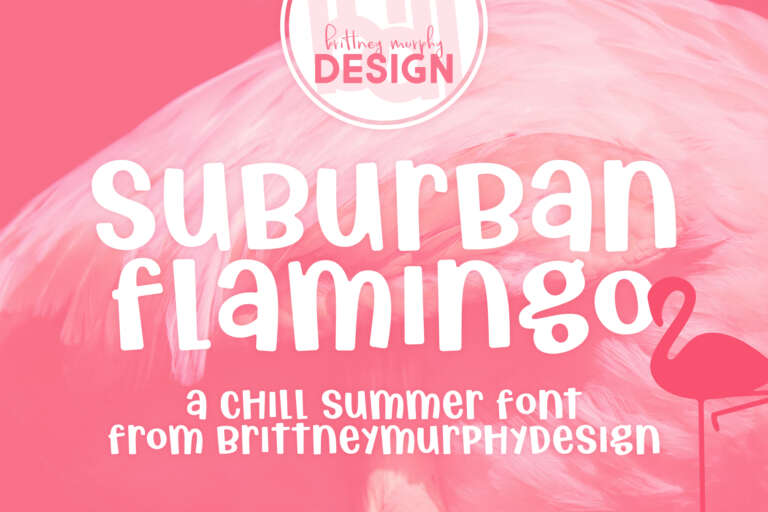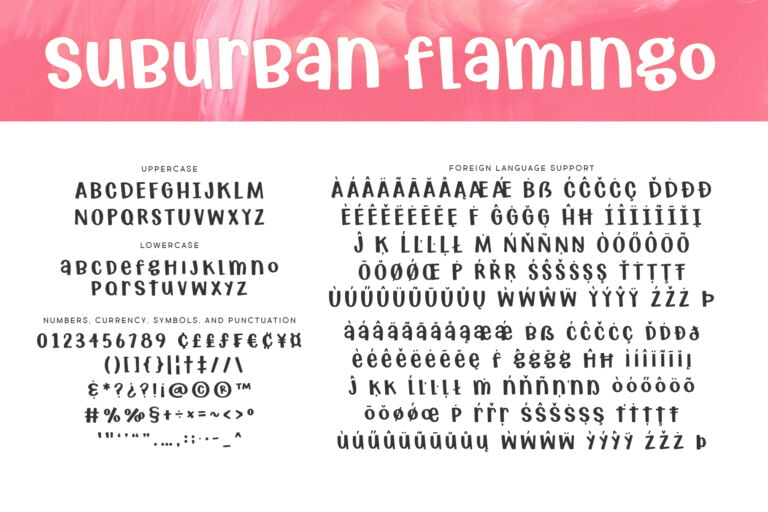
Suburban Flamingo Font
About the Suburban Flamingo Font
Suburban Flamingo is a quirky and chill sans typeface created by Brittney Murphy Design in 2022. This font has soft rounded corners, and almost no descenders, making it very easy to pair vertically with other text. The upper and lowercase are mono-height against themselves helping keep your design tight and uniform, but still with all of the personality. It features support for most Latin-based languages and a full set of punctuation and numbers.
Suburban Flamingo works great for summer event flyers, birthday party invitations, all kinds of kids’ designs, and any design you want to add a little fun to.
I wanted to create something with an enthusiastic and optimistic attitude. I originally wanted to call it shark bites, to pay homage to Kirishima Eijirou however, apparently this name is already a popular thing for plumbing and michael didn’t want to compete against them.